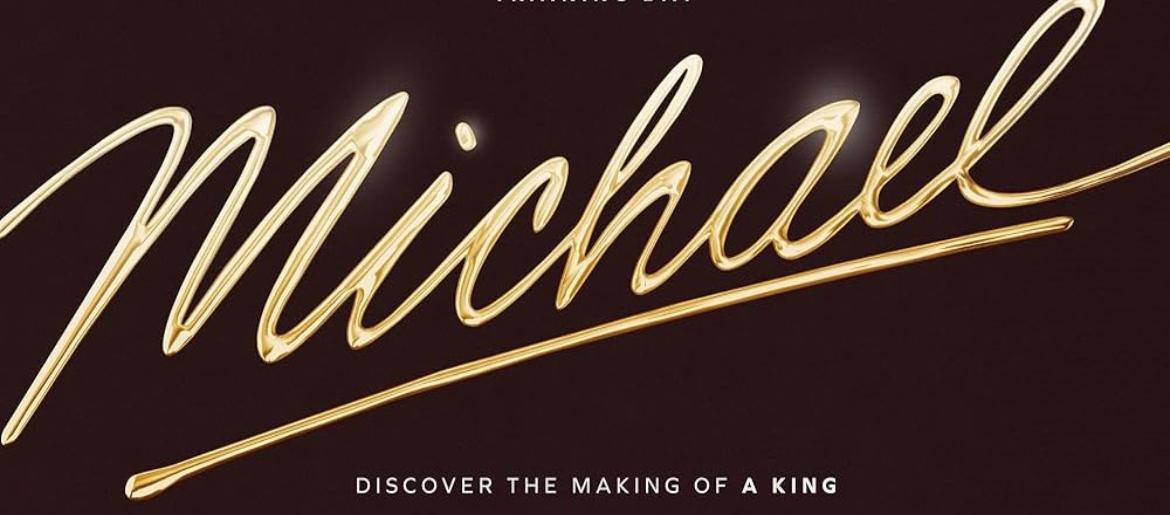
Michael Font
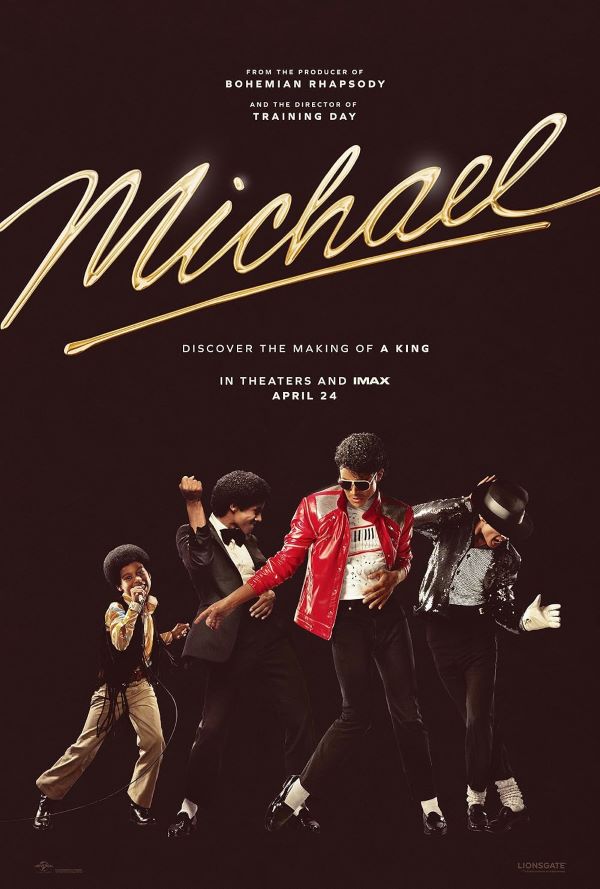
What Font Does Michael Use?
The Michael Font used in the movie’s title design is likely a custom-designed typeface created specifically for the film’s branding and promotional materials. The lettering appears to be a display-style font featuring bold structure, cinematic spacing, and distinctive stylized details that give the title a dramatic and visually striking identity. Because the original typeface is custom, it is not publicly available. However, there are free alternative fonts that closely capture its cinematic and bold appearance, making them suitable for fan art, poster recreations, and concept design projects.
About Michael
Michel is a film recognized for its stylized storytelling and strong visual presentation. The movie stands out through its artistic direction, character-driven narrative, and atmospheric tone. Its title typography, often inspiring designers searching for free fonts, plays an important role in establishing mood and visual recognition, helping reinforce the film’s cinematic identity across posters, marketing, and promotional materials.